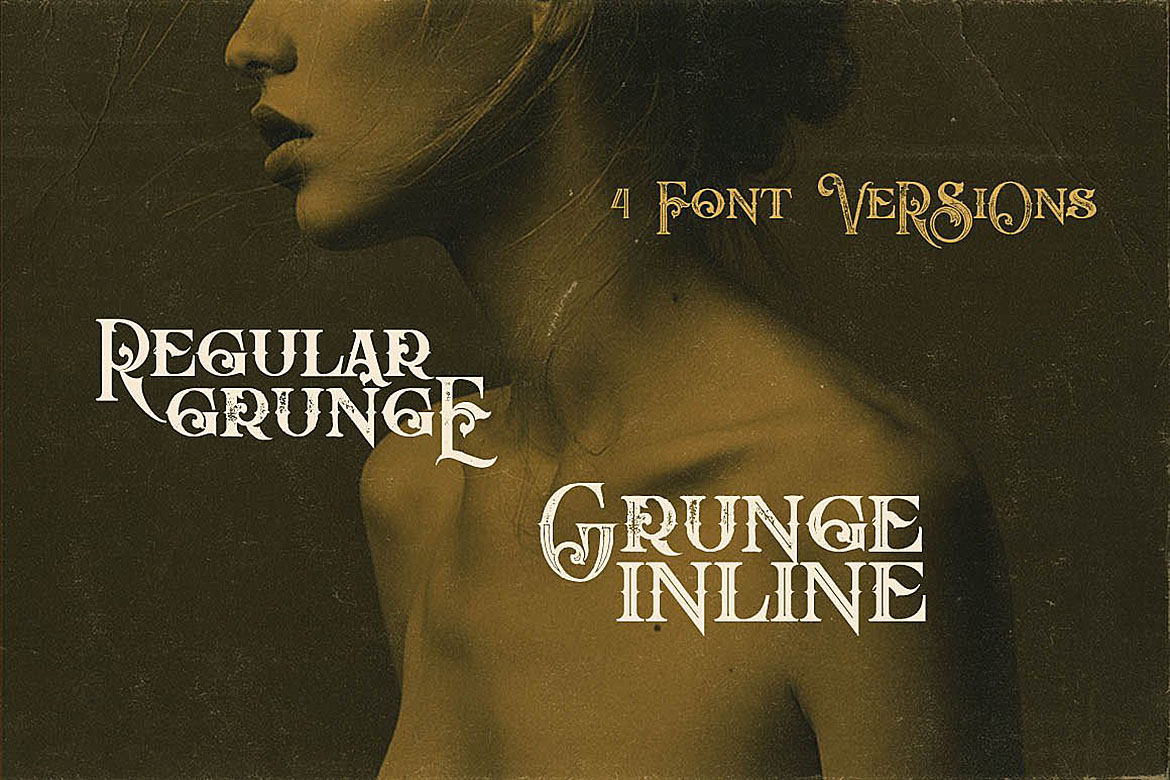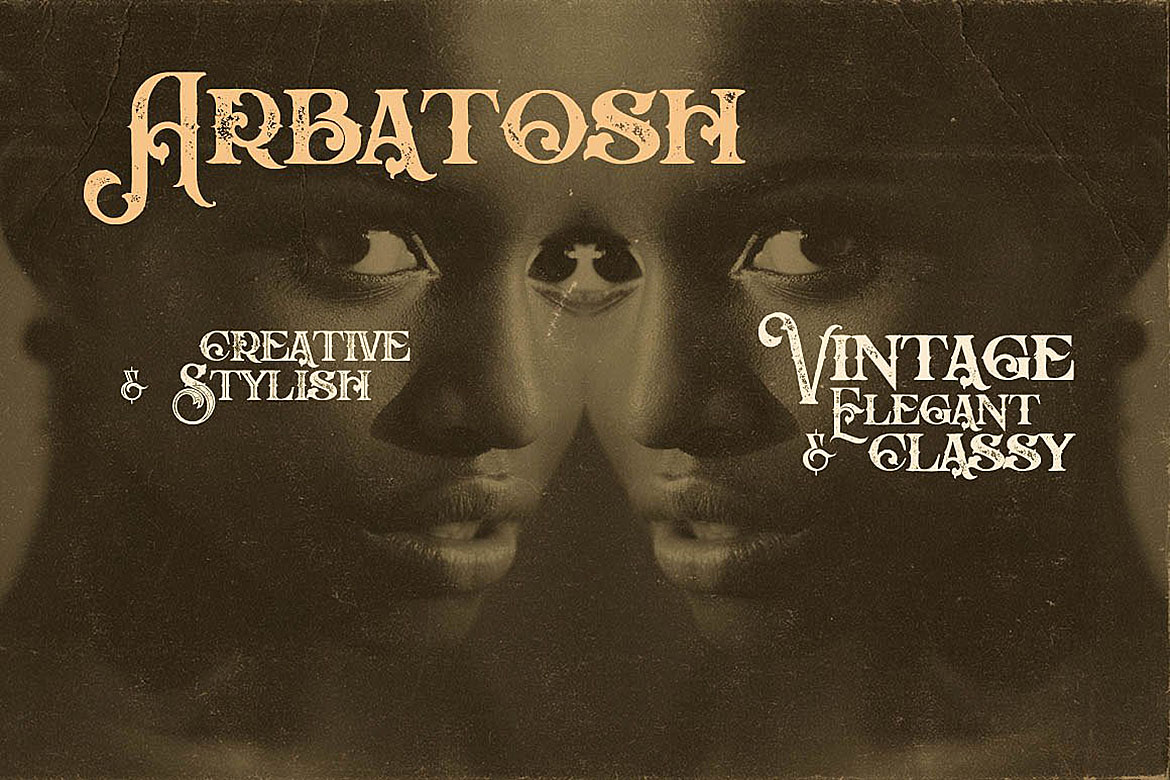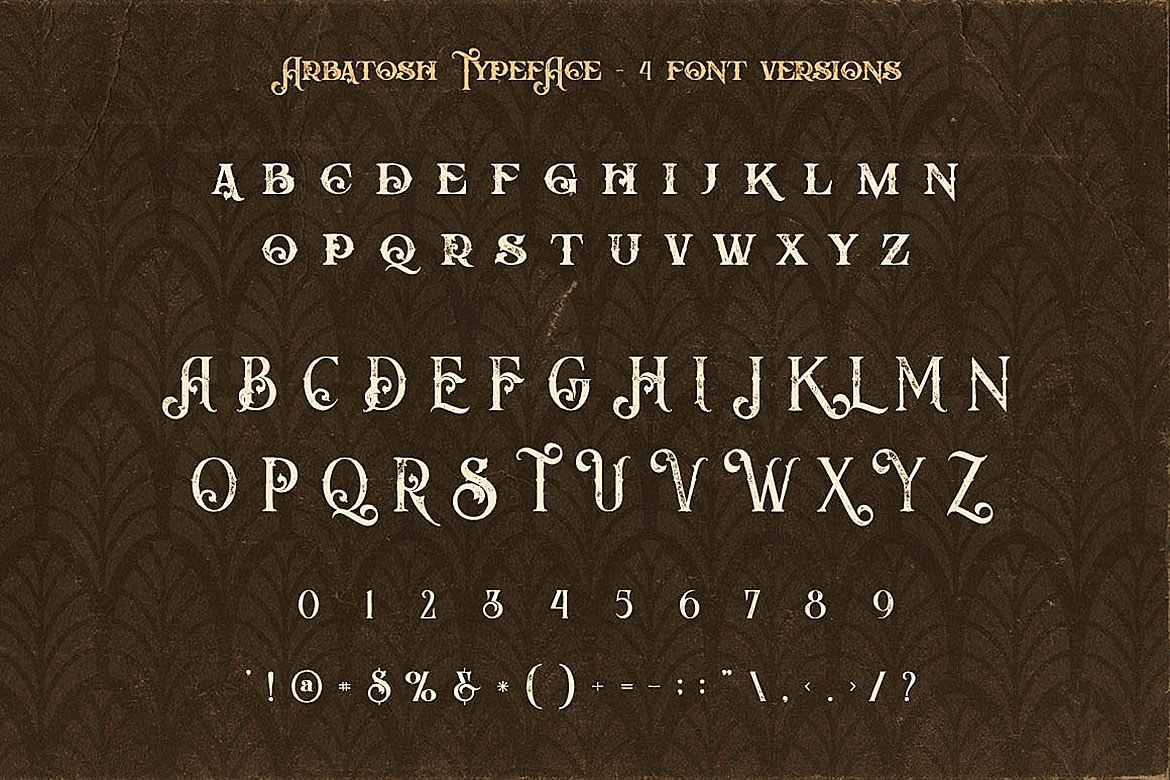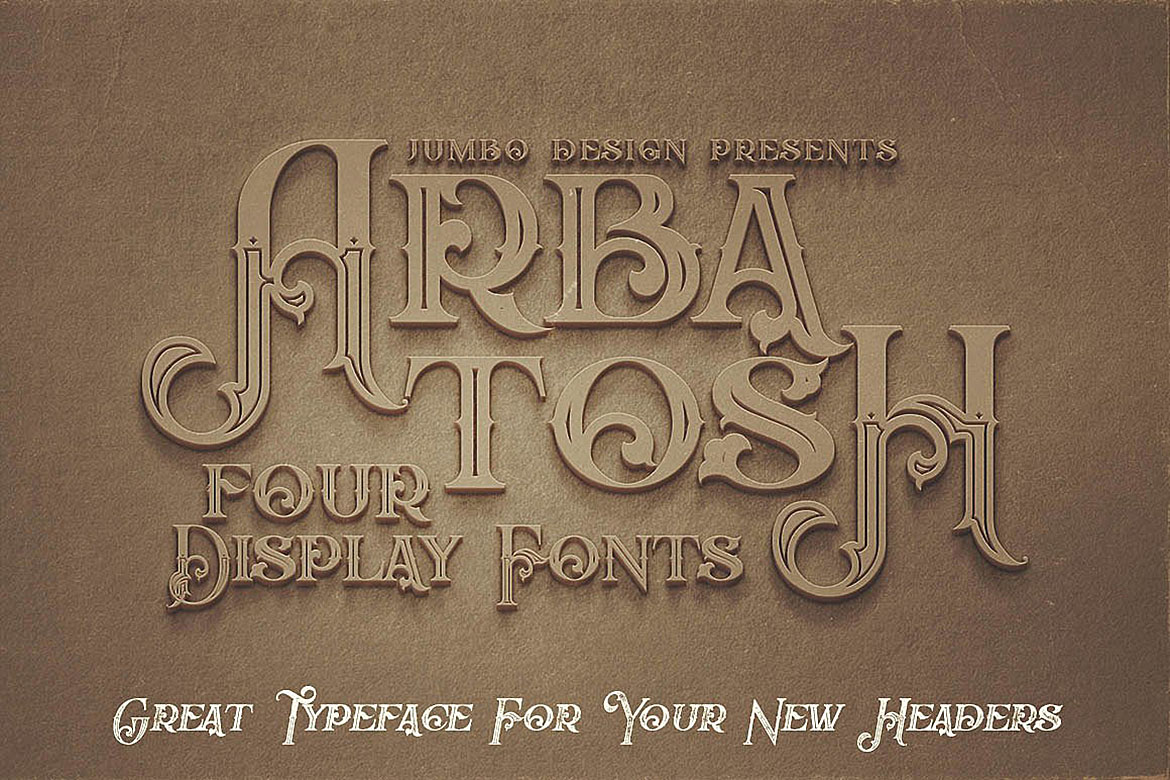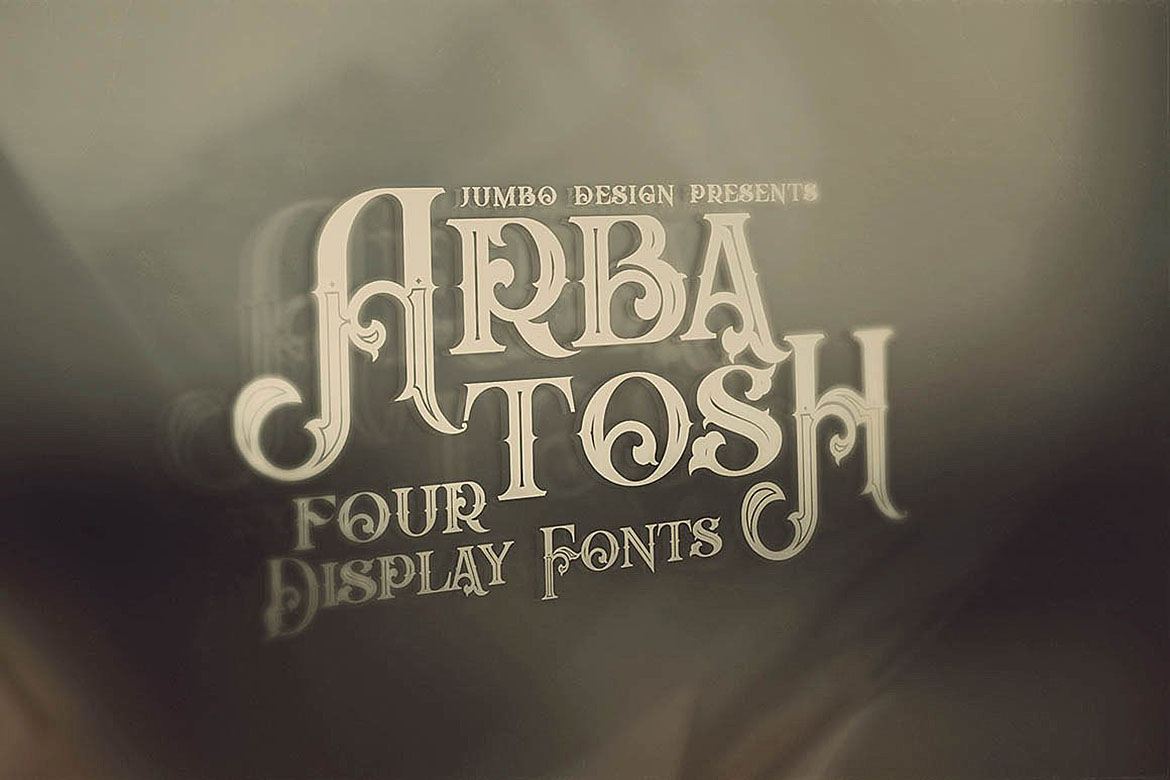
Discover the Charm of Arbatosh Font: A Unique Ornate Style for Your Designs
Are you tired of using the same old fonts in your designs? Look no further than Arbatosh, a stunning ornamental font that adds a touch of vintage flair to any project. With its intricate design and style options, Arbatosh is the perfect choice for designers and crafters looking to elevate their work.
What is Arbatosh Font?
Arbatosh is a distinctive font that boasts an ornate, retro aesthetic. Its unique design makes it an excellent option for those seeking a vintage or distressed look in their typography. Whether you’re working on a logo, poster, or packaging design, Arbatosh is sure to make your project stand out.
Key Features of Arbatosh Font
- Intricate Design: Arbatosh features an elaborate design with intricate details that give it a luxurious, high-end feel.
- Vintage/Retro Style: The font’s ornate style is reminiscent of classic typography from the past, making it perfect for projects that require a nostalgic touch.
- Multiple Style Options: Arbatosh comes with various style options, allowing you to experiment with different looks and find the one that suits your design best.
- Display-Worthy: This font is specifically designed to shine in displays, making it ideal for headlines, titles, and other prominent text elements.
Why Choose Arbatosh Font?
With so many fonts available, why should you choose Arbatosh for your next project? Here are a few compelling reasons:
- Uniqueness: Arbatosh’s distinctive design ensures that your work will stand out from the crowd.
- Versatility: The font’s versatility allows it to be used in a wide range of design applications, from print to digital media.
- Ease of Use: Despite its intricate design, Arbatosh is easy to use and can be incorporated into your project with minimal effort.
- Timeless Appeal: The font’s vintage style ensures that it will remain relevant for years to come, making it a great investment for designers and crafters.
Using Arbatosh Font in Your Designs
Ready to incorporate Arbatosh into your next project? Here are some tips to get you started:
- Pair it with a Simple Font: Balance out Arbatosh’s ornate style by pairing it with a simpler font for body text.
- Experiment with Colors: Try out different color schemes to find the one that best complements the font’s vintage style.
- Play with Sizes: Don’t be afraid to experiment with different font sizes to create visual interest and hierarchy in your design.
Arbatosh font is a unique and versatile ornamental font that can add a touch of elegance and sophistication to any design project. Its intricate design, vintage style, and multiple style options make it an excellent choice for designers and crafters looking to create stunning visual content. Whether you’re working on a logo, poster, or packaging design, Arbatosh is sure to make your project stand out.